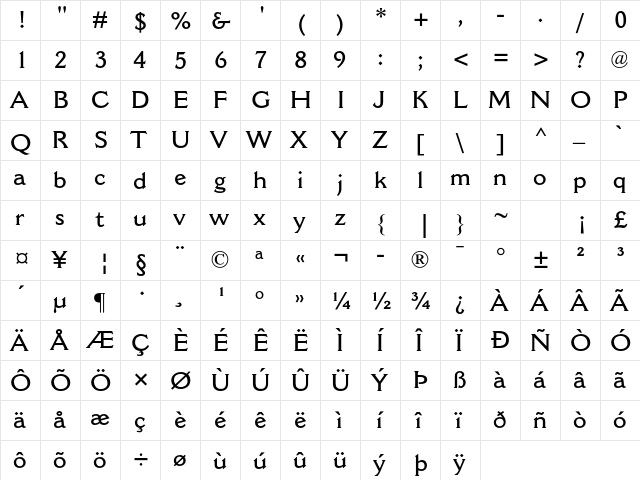
Cantoria MT Std Semibold Font Preview
Cantoria MT Std Semibold
Cantoria MT Std Semibold Font Details
| Style | Semibold |
| Designer | Ron Carpenter |
Design Context for Cantoria MT Std Typeface
Cantoria MT Std takes a measured approach to typography — its balanced proportions and neutral character make it a reliable workhorse for both digital and print work. The heavy weight commands attention and anchors typographic hierarchies.